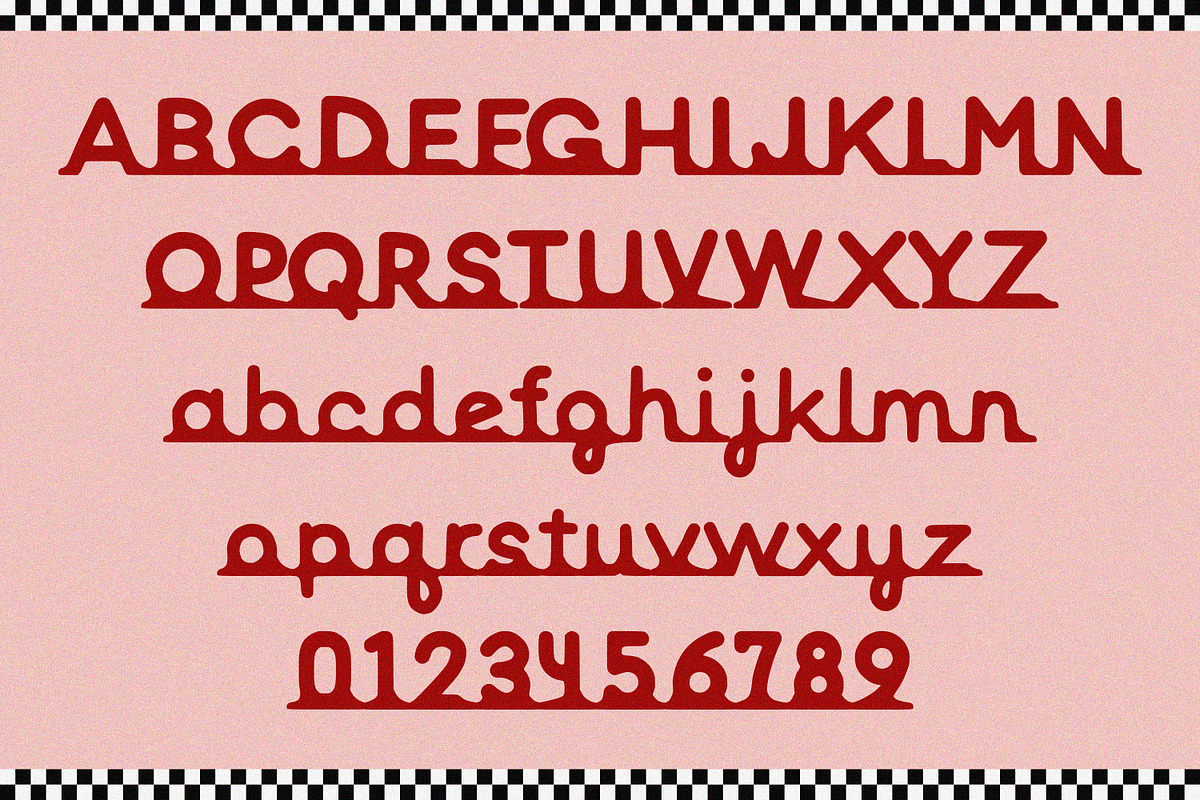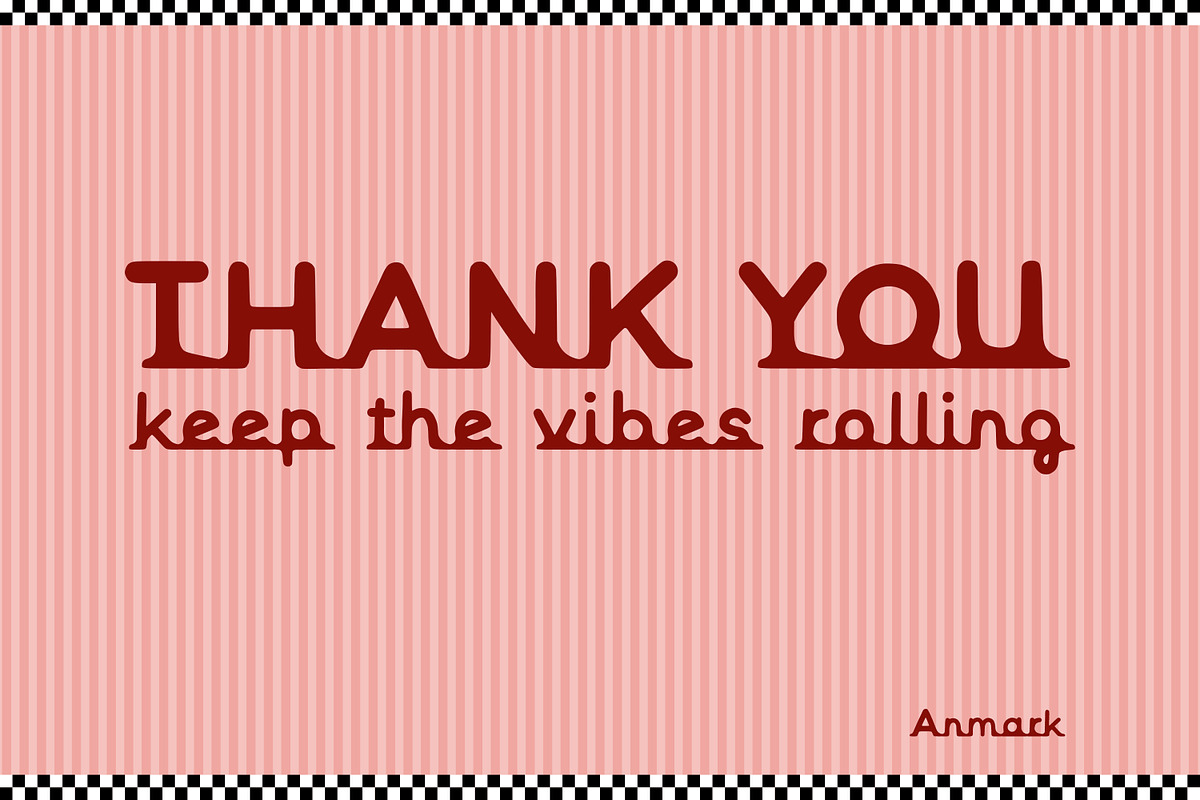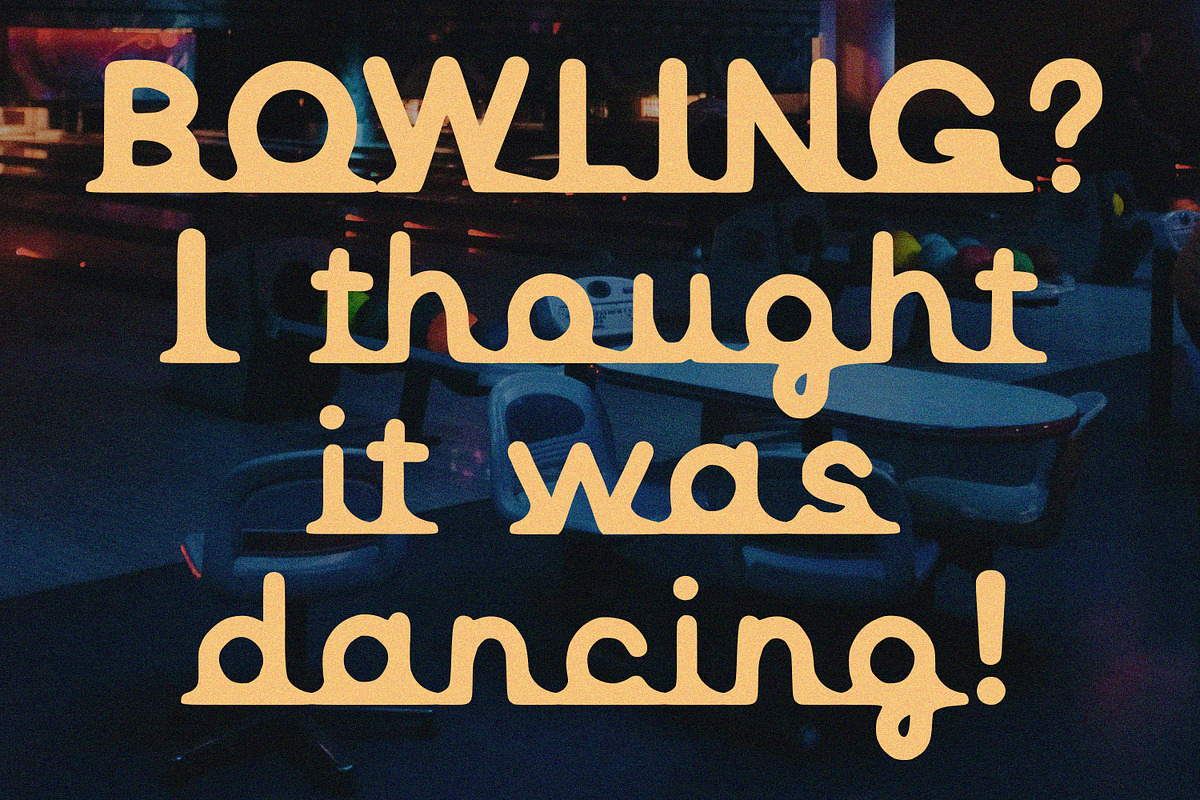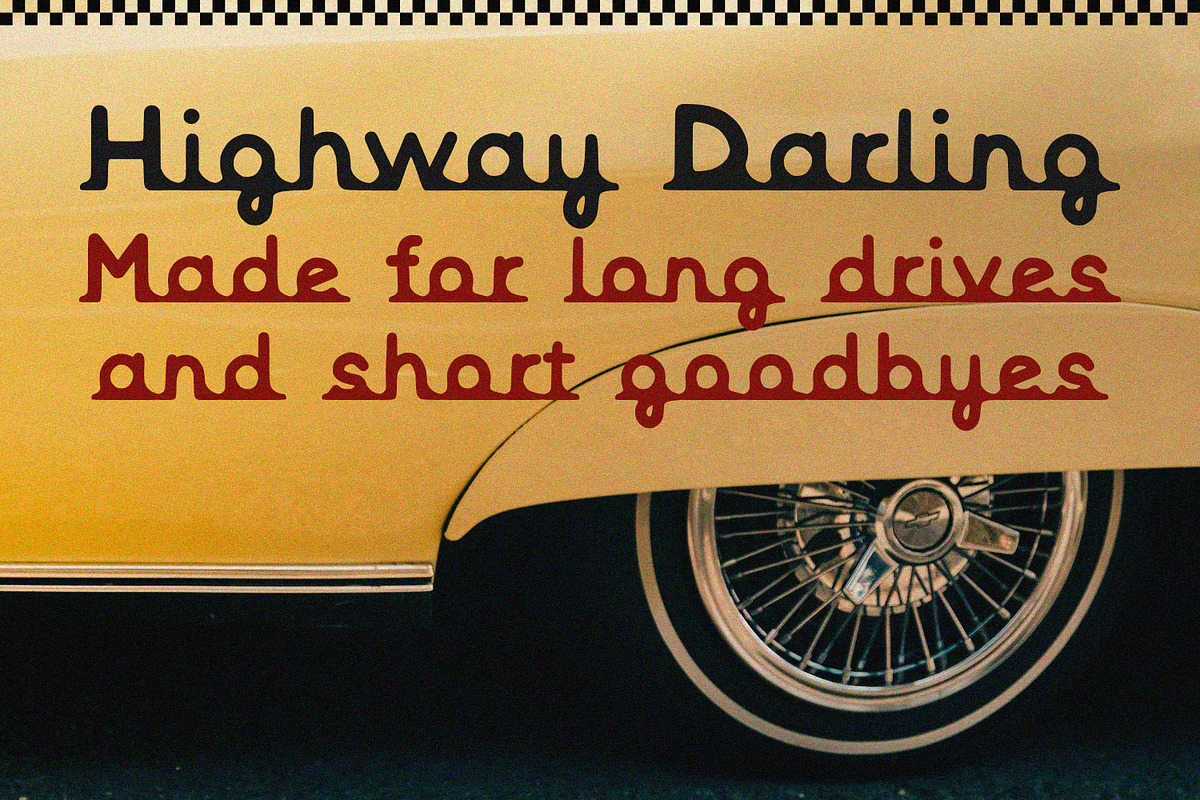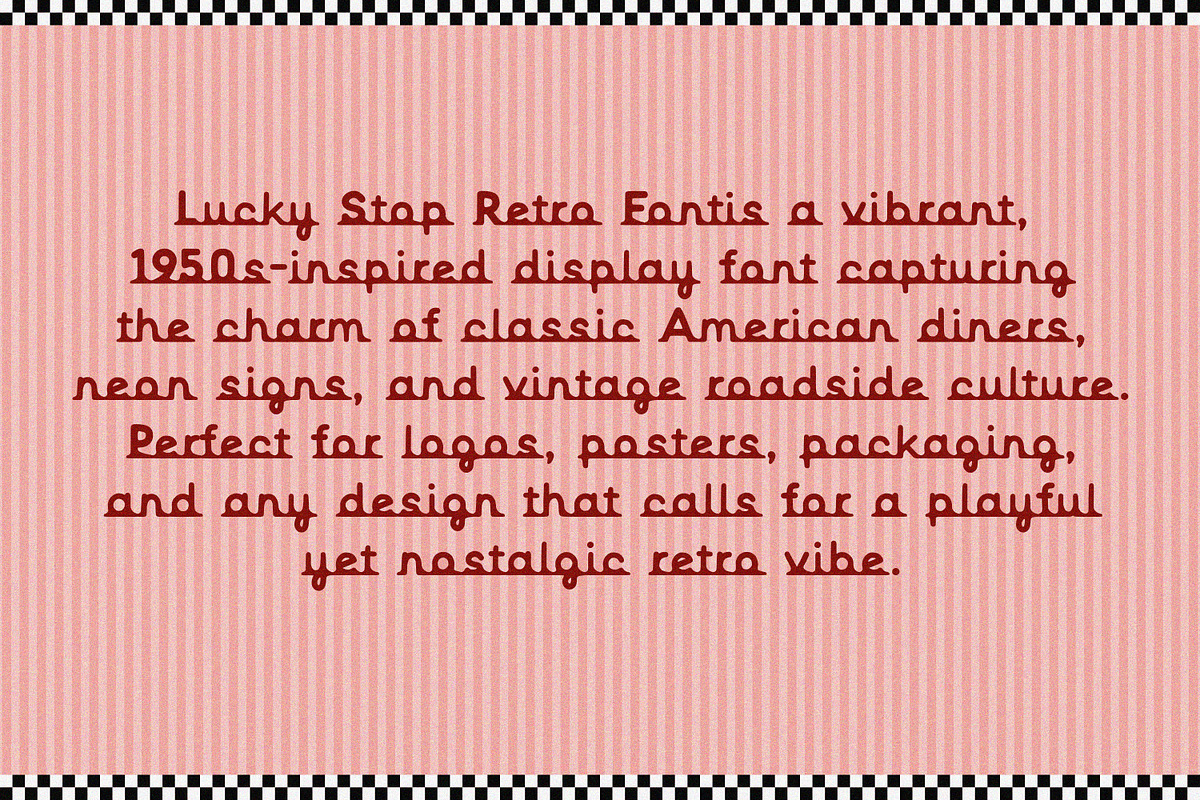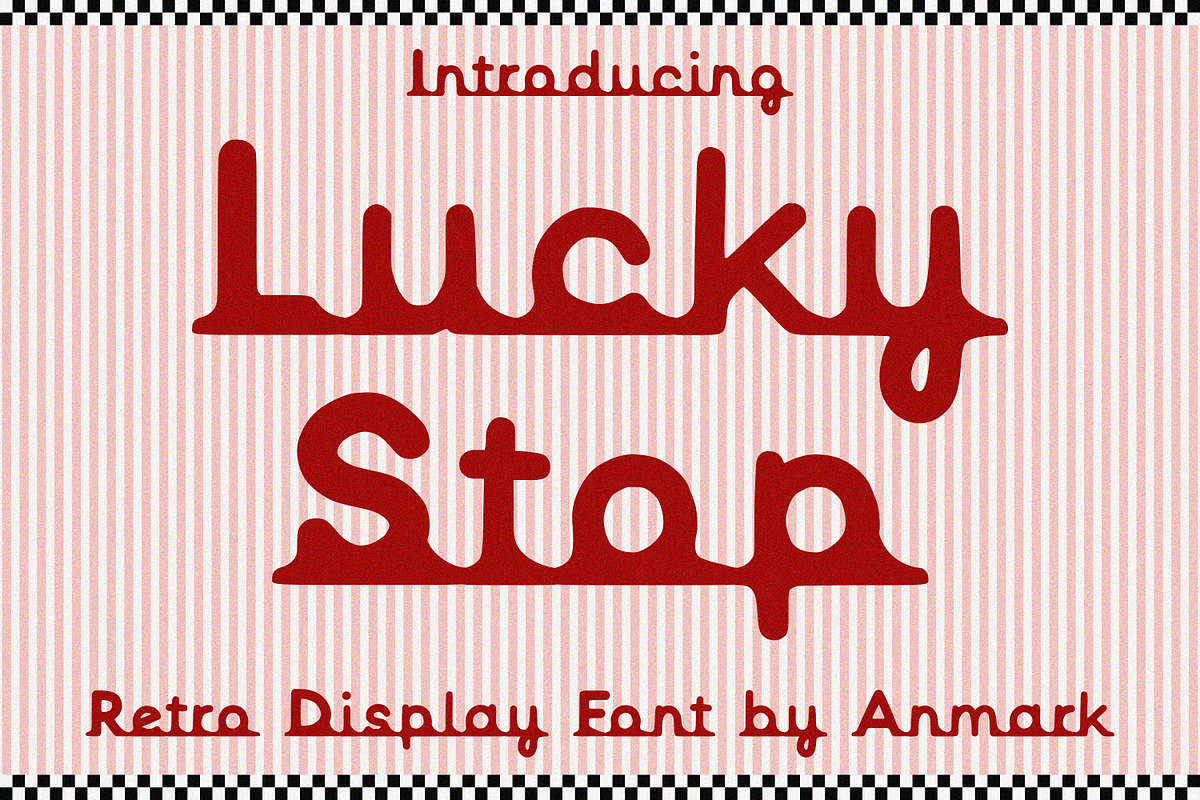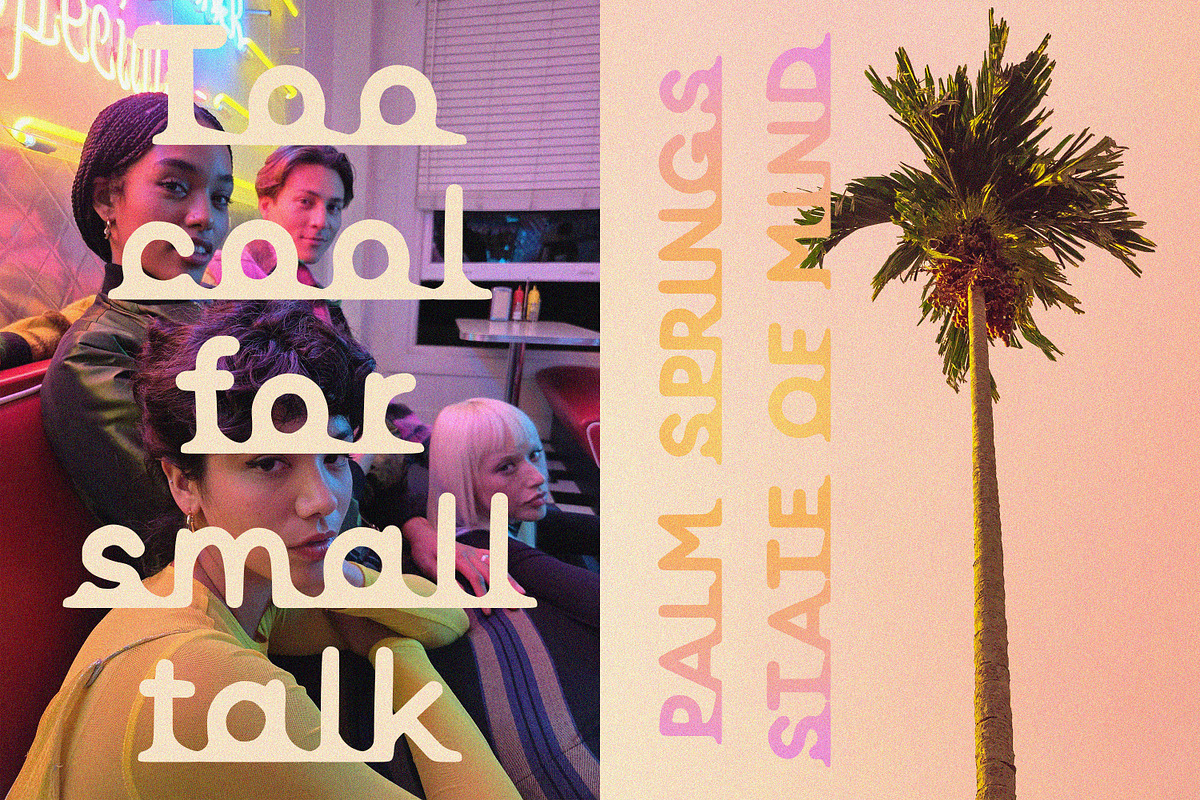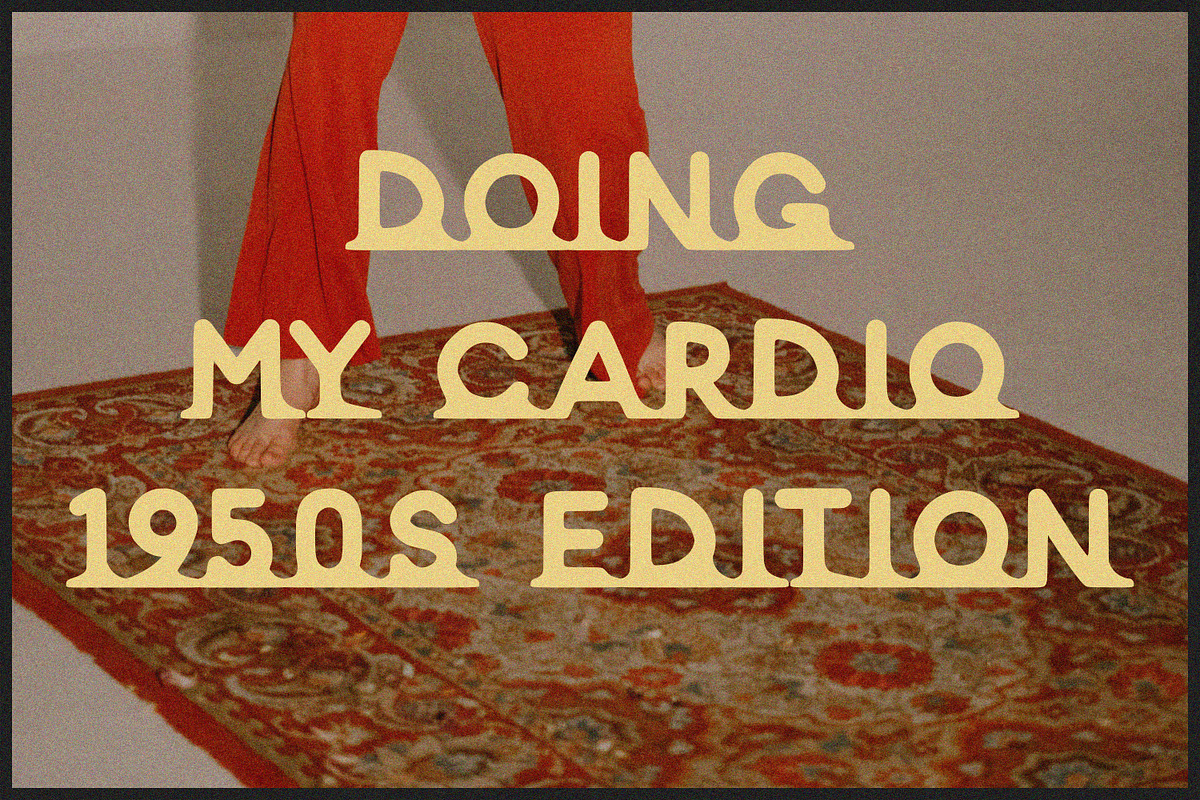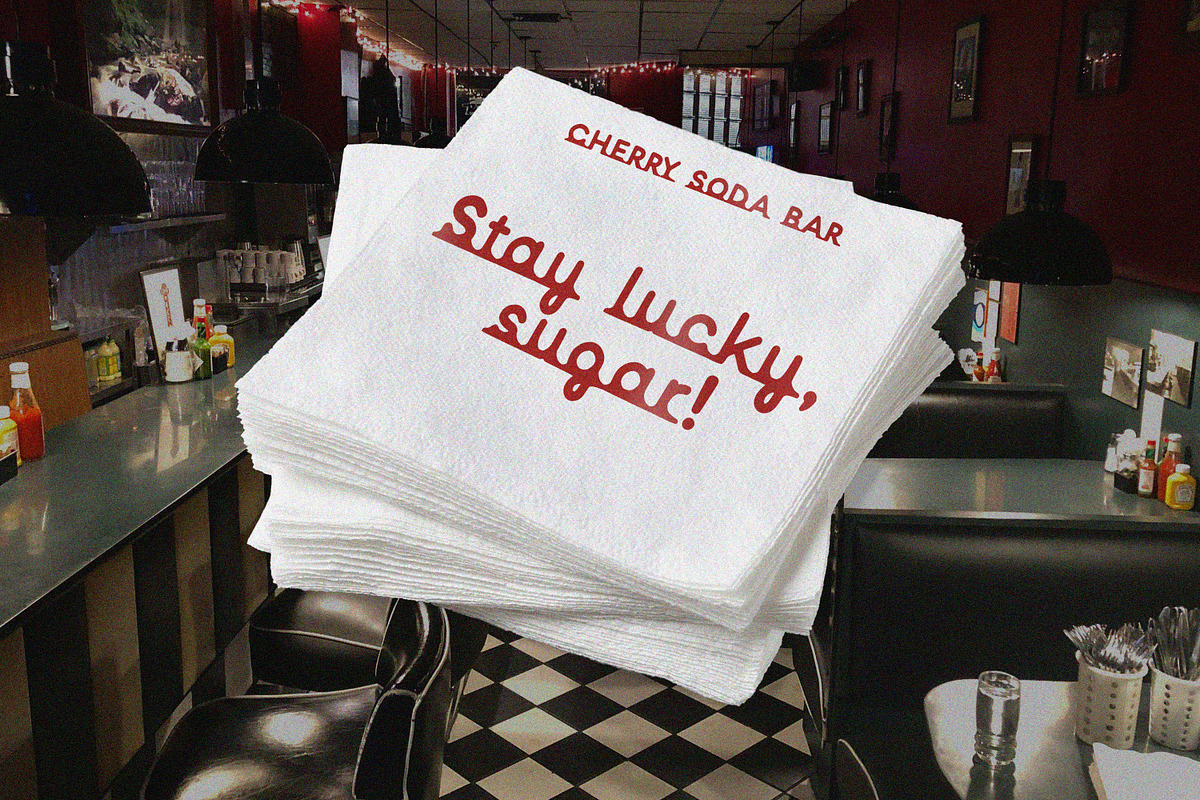
Lucky Stop Display Retro Vibe Font
Lucky Stop Retro Font is a vibrant, 1950s-inspired display font capturing the charm of classic American diners, neon signs, and vintage roadside culture. Perfect for logos, posters, packaging, and any design that calls for a playful yet nostalgic retro vibe. With bold curves, stylish angles, and a touch of flair, Lucky Stop brings the spirit of mid-century Americana to your creative projects.
- Display / Retro style
- Perfect for branding, posters, signage, and packaging
- Bold, fun, and nostalgic 50s aesthetic
- Ideal for diner-inspired, Americana, and neon-themed designs